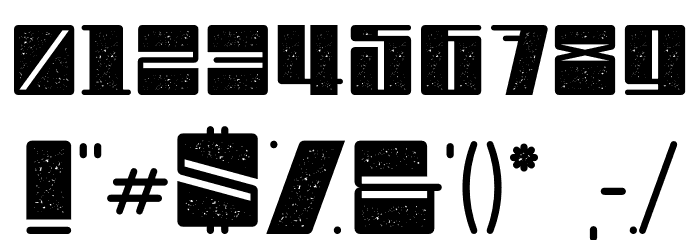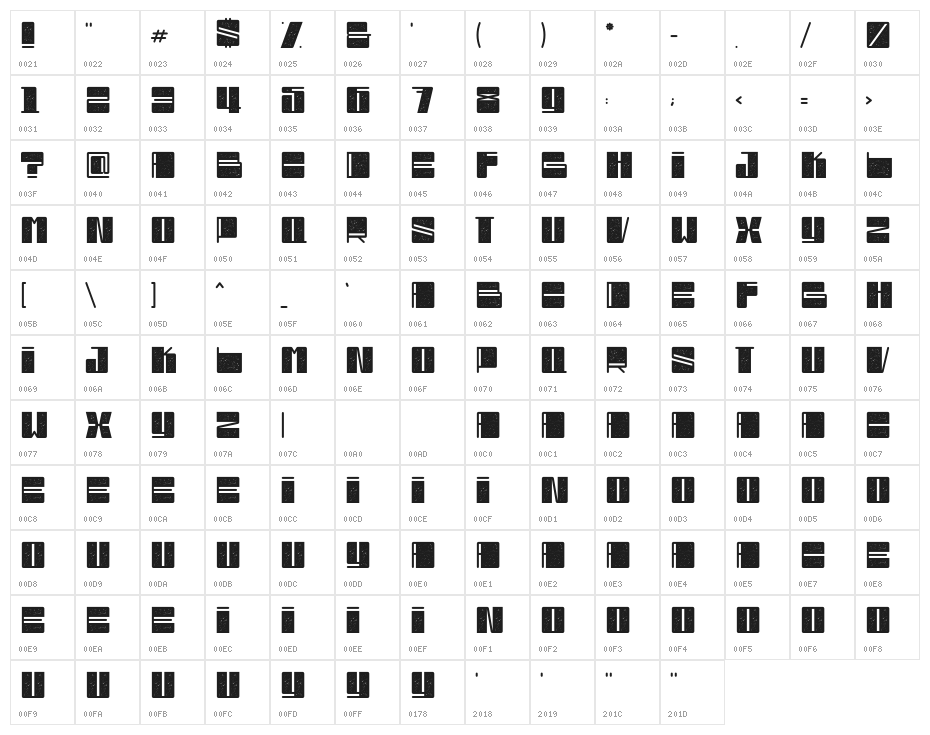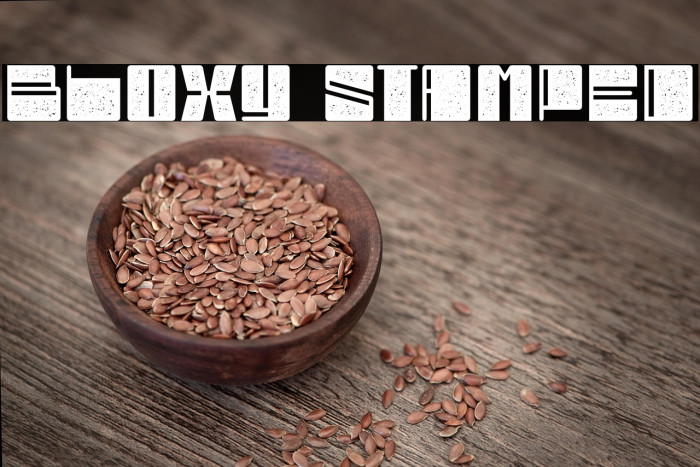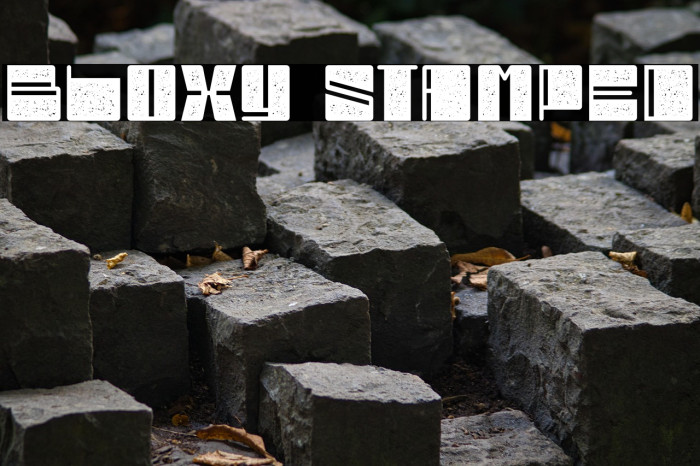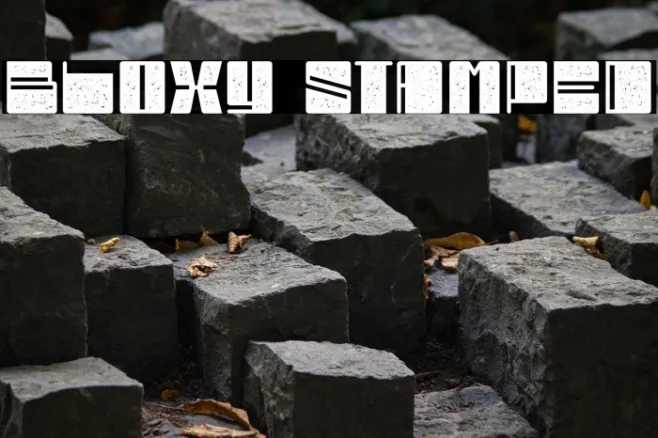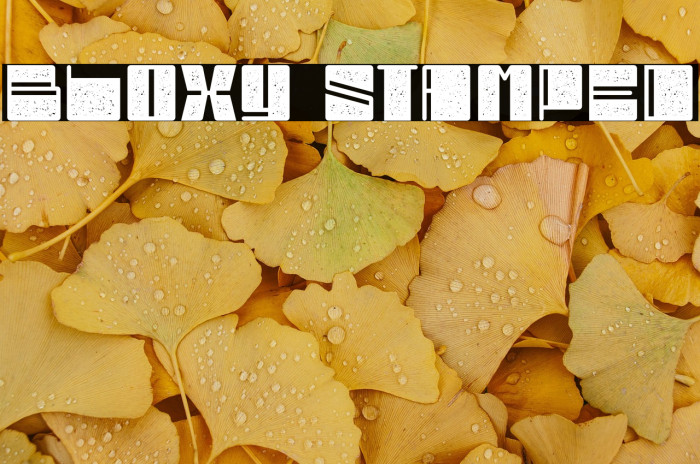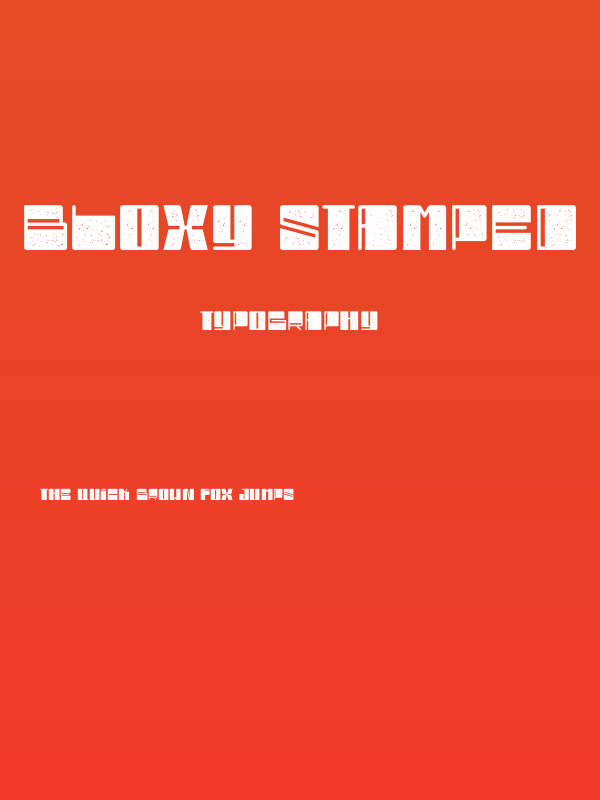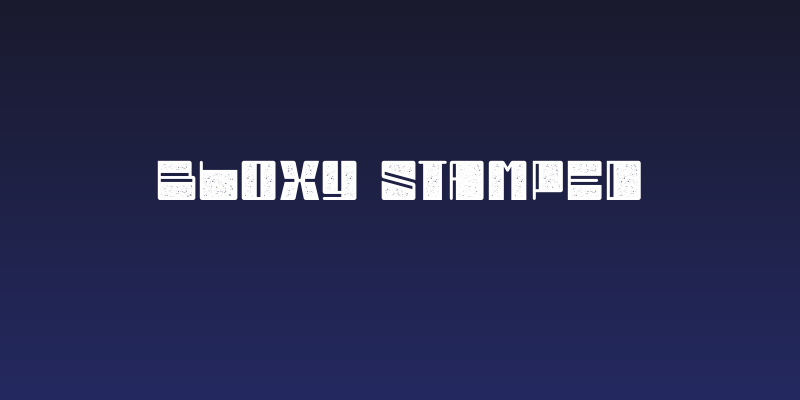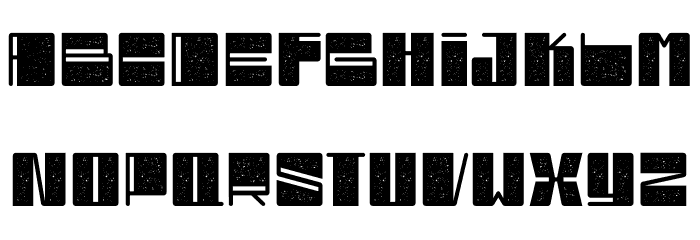
Bloxy Stamped Font
Bloxy Stamped Description
This font features a bold, blocky design with a distressed, stamped texture that gives it a rugged and industrial feel. The characters are uniformly wide, with a geometric structure that emphasizes straight lines and right angles. The distressed texture adds a vintage, worn-out look, making it ideal for projects that require a gritty, urban aesthetic. The uppercase and lowercase letters maintain a consistent style, while the numerals and special characters complement the overall design. This font is perfect for creating eye-catching headlines, posters, and branding materials that need a strong, impactful presence.
| Overall Style | Industrial, Vintage |
| Proposed Projects | Ideal for posters, branding, headlines, and any project needing a strong, industrial aesthetic. |